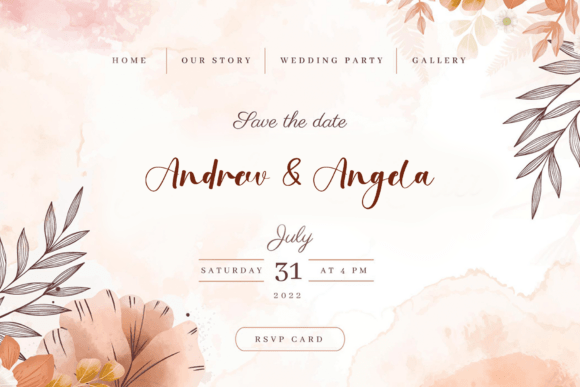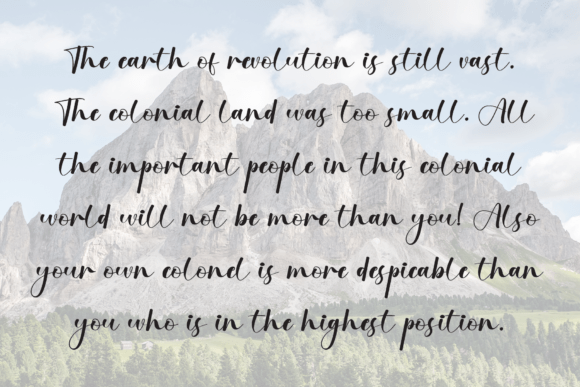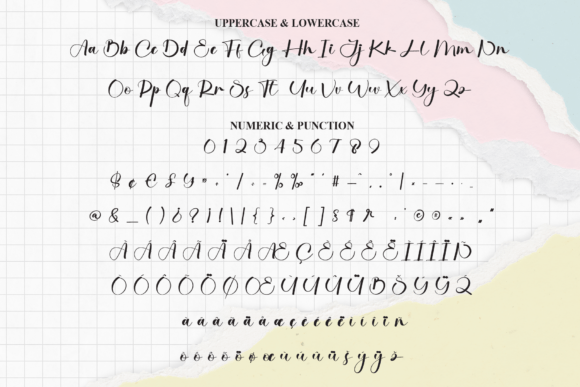
Introduction to Paperline Font
Remember that moment when you’re brainstorming a creative project, and the perfect font is just out of reach? You’ve got the vision, but the design isn’t quite coming together. For designers, finding the right font can make all the difference between a mediocre design and a stunning one.
Enter the Paperline Font, a confident script calligraphy font that’s designed to bring a touch of modern sophistication to your work. With its smooth, high-quality lines and versatile style, it’s the perfect design resource for logos, product packaging, fashion branding, and editorial design with flair.
Key Features of Paperline Font
- High-quality design resource with a modern, minimalist aesthetic
- Transparent background, making it ideal for creative projects that require a clean and simple look
- Includes 7 font styles, each with its own unique characteristics and versatility
- Perfect for creative projects that require a touch of elegance and sophistication, from branding and marketing materials to editorial and publishing projects
Honest Review: Paperline Font
I recently stumbled upon the Paperline Font, and I must say it’s a fantastic addition to my design resources. This elegant script font is perfect for creative projects that require a touch of sophistication.
- ✨ High-quality design that’s ideal for logos, branding, and invitations
- ✨ Unique and elegant script style that sets it apart from other fonts
- ✨ Transparent background option makes it easy to use on any design surface
- ⚠️ Limited character set, which may not be suitable for long blocks of text
- ⚠️ May require some tweaking to get the perfect line spacing and letter spacing
Overall, I’m impressed with the Paperline Font. It’s a great free download that’s perfect for designers looking for a high-quality script font. With a little practice, you can achieve stunning results that will elevate your creative projects. Whether you’re designing a wedding invitation or a brand identity, this font is definitely worth considering.
The Paperline Font is a versatile design resource ideal for creative projects. Its high-quality, modern design makes it perfect for various applications, from digital to print media. With a transparent background, this font offers flexibility and ease of use.
The Paperline Font is perfect for various creative projects, such as:
- Branding and identity design
- Print media
Alternatives to Paperline Font
Great Vibes is a high-quality, handwritten font that can be used for various creative projects, such as wedding invitations, greeting cards, and social media graphics. It features a beautiful, elegant script style with a transparent background, making it perfect for designers looking for a design resource with a unique touch.
When to use: Wedding invitations, greeting cards, social media graphics, and any project that requires a touch of elegance.
Comparison to Paperline Font: Great Vibes Font has a more elegant and refined look compared to Paperline Font, which has a more casual and playful feel.
Alex Brush is a high-quality, handwritten font that can be used for various creative projects, such as branding, packaging, and editorial design. It features a beautiful, calligraphic script style with a transparent background, making it perfect for designers looking for a design resource with a high-end touch.
When to use: Branding, packaging, editorial design, and any project that requires a touch of sophistication.
Comparison to Paperline Font: Alex Brush Font has a more formal and elegant look compared to Paperline Font, which has a more casual and playful feel.
Dancing Script is a high-quality, handwritten font that can be used for various creative projects, such as advertising, marketing, and social media graphics. It features a beautiful, elegant script style with a transparent background, making it perfect for designers looking for a design resource with a unique touch.